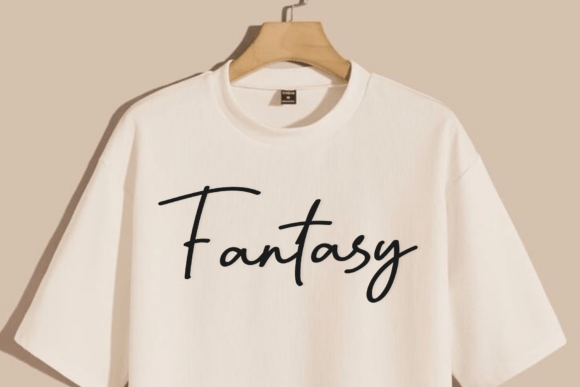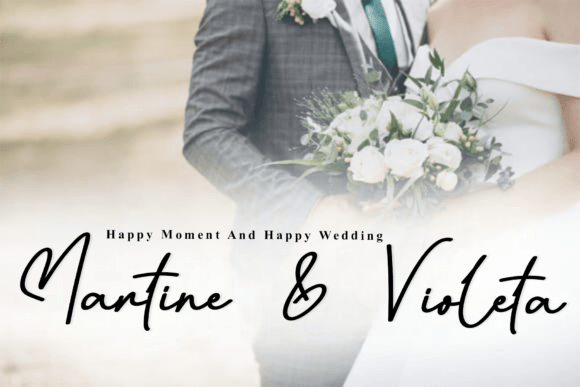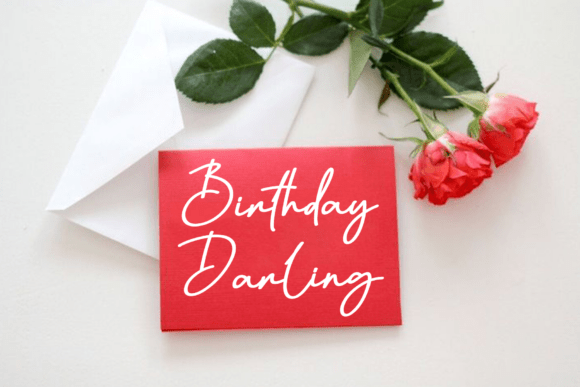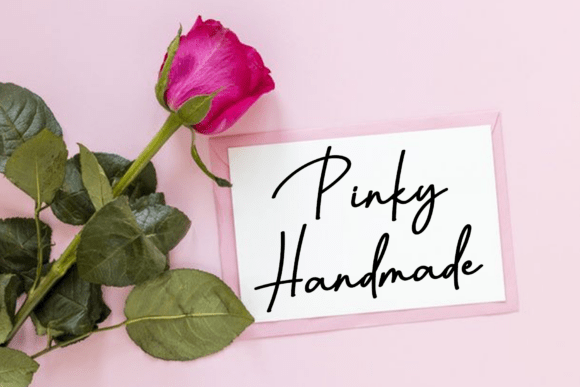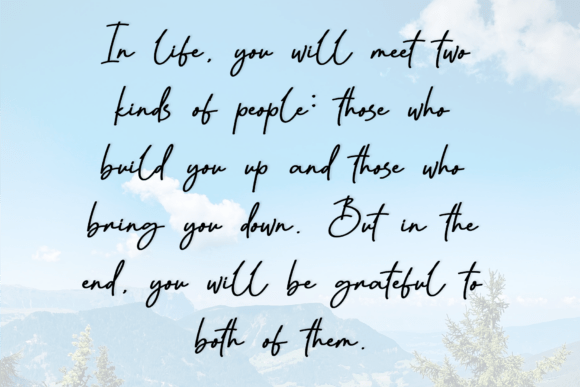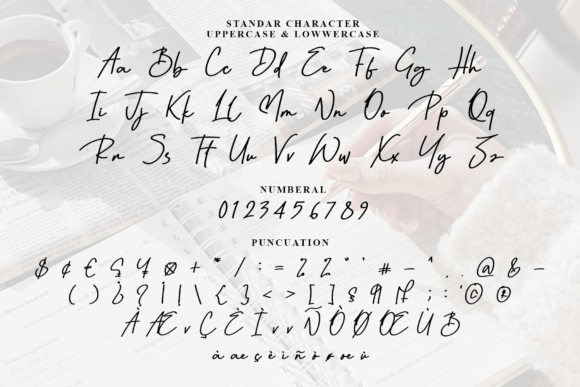
Introducing Everyday Font: The Perfect Handwritten Style for Your Designs
Are you tired of using the same old fonts in your designs? Look no further than Everyday Font, a charming and playful typeface that’s perfect for adding a personal touch to your projects. With its unique blend of uneven, monoline weight and clean vertical structure, Everyday Font is ideal for designers and crafters looking to create something truly special.
The Characteristics of Everyday Font
Everyday Font is a tall, friendly font with a number of distinctive characteristics that set it apart from other typefaces. Its slightly condensed and clean vertical structure gives it a straightforward, yet approachable, personality that’s perfect for a wide range of design applications. The font’s monoline weight adds a touch of playfulness and whimsy, making it ideal for projects that require a strong, clear, and genuinely cheerful handwritten style.
What Makes Everyday Font So Versatile?
One of the things that makes Everyday Font so versatile is its ability to work well in a variety of design contexts. Whether you’re creating a children’s book, designing custom stationery, or crafting positive social media quotes, Everyday Font is the perfect choice. Its playful and unique personality shines through in every letter, making it an excellent addition to any project that needs a personal touch.
Perfect for Children’s Books and Stationery
Everyday Font is a natural fit for children’s books and custom stationery. Its playful and cheerful personality is sure to delight kids and adults alike, making it perfect for storybooks, activity books, and other projects that require a fun and engaging typeface. The font’s clean and clear structure also makes it easy to read, even for young children.
Ideal for Social Media and Branding
In addition to its use in children’s books and stationery, Everyday Font is also ideal for social media and branding projects. Its strong and clear personality makes it perfect for crafting positive social media quotes, while its playful and unique style is sure to help your brand stand out from the crowd. Whether you’re creating a logo, business card, or social media graphic, Everyday Font is a great choice.
What Kind of Projects Can You Create with Everyday Font?
The possibilities are endless when it comes to creating projects with Everyday Font. Here are a few ideas to get you started:
- Children’s books and activity books
- Custom stationery and greeting cards
- Positive social media quotes and graphics
- Casual branding and logos
- Invitations and party decorations
- DIY craft projects and tutorials
Tips for Using Everyday Font in Your Designs
Here are a few tips for using Everyday Font in your designs:
- Use Everyday Font as a headline font to add a playful touch to your designs
- Pair Everyday Font with a simpler font for body text to create visual interest
- Experiment with different colors and textures to add depth and personality to your designs
- Use Everyday Font to create custom illustrations and graphics
Everyday Font is a unique and versatile typeface that’s perfect for designers and crafters looking to add a personal touch to their projects. With its playful and cheerful personality, clean and clear structure, and strong and clear style, Everyday Font is ideal for a wide range of design applications. Whether you’re creating a children’s book, designing custom stationery, or crafting positive social media quotes, Everyday Font is the perfect choice. So why not give it a try and see what amazing projects you can create?